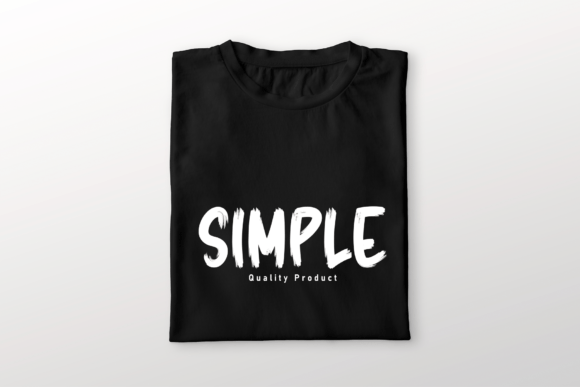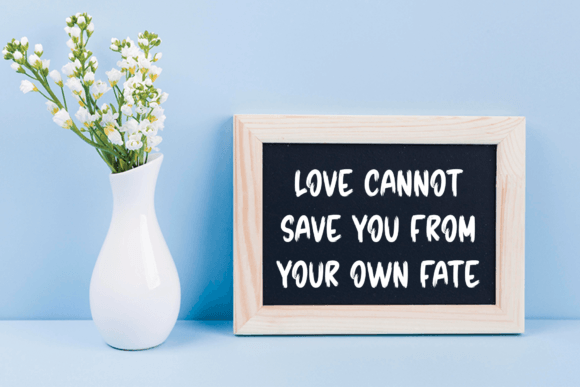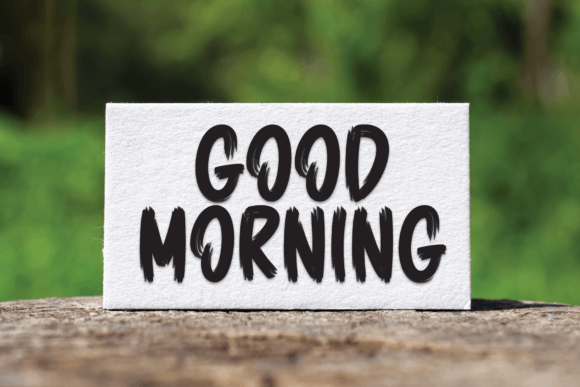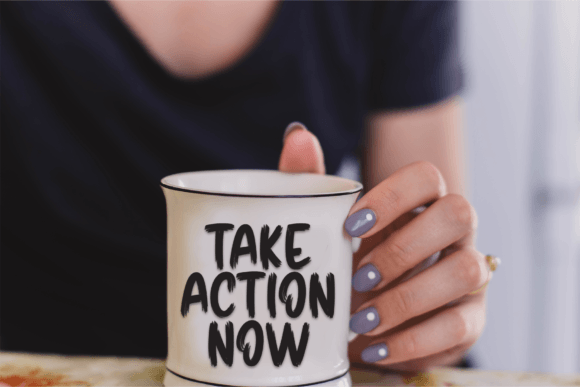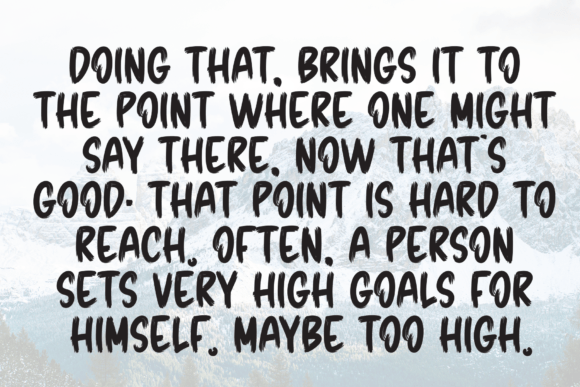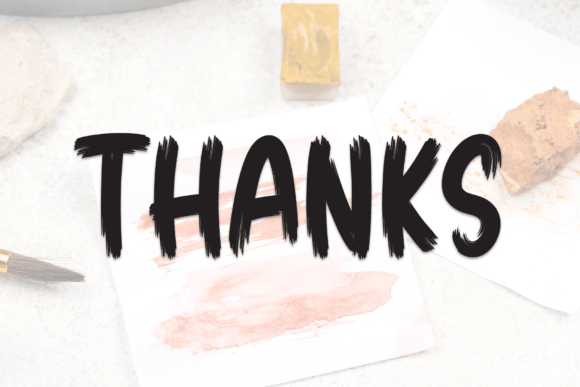
Unleash Your Creativity with the Brush Handmade Font
Have you ever been in the middle of a creative project, pouring your heart and soul into it, when suddenly, the perfect font comes to mind? For many designers, the Brush Handmade Font is that elusive spark that brings their ideas to life.
Brush Handmade Font is a charming and approachable handwritten font, crafted with love and attention to detail. Its unique, hand-painted style gives your designs a personal touch, making them stand out from the crowd. Whether you’re working on a wedding invitation, a children’s book, or a social media campaign, this font is the perfect companion to help you express your creativity.
For designers, the Brush Handmade Font is a valuable tool that can elevate their work and make it more engaging. Its versatility and natural charm make it a must-have in every designer’s toolkit, allowing them to bring their imagination to life and create truly unique and memorable designs.
Key Features of Brush Handmade Font
- Character Set: The font includes a comprehensive set of characters, including uppercase and lowercase letters, numerals, punctuation, and special characters.
- Unique Characteristics: The Brush Handmade Font features a unique, hand-drawn design with subtle imperfections, giving it a natural, organic feel.
Brush Handmade Font Review
Overall, I was impressed by the Brush Handmade Font, a beautiful script font designed to evoke a sense of elegance and sophistication. ✨ The font’s fluid, handwritten feel makes it perfect for creating a sense of warmth and personality in your designs.
Here are some of the things that worked well for me:
- ✨ Beautifully crafted letterforms that are both elegant and whimsical
- ✨ Excellent legibility, even at smaller font sizes
- ✨ Great for creating a sense of movement and flow in your designs
However, I did encounter a few limitations:
- ⚠️ Limited language support, which may be a concern for multilingual designs
- ⚠️ Some users may find the font’s fluid feel to be too loose or inconsistent
- ⚠️ May not be suitable for titles or headlines where precision and clarity are essential
Overall, I think the Brush Handmade Font is a great choice for designers looking to add a touch of elegance and personality to their designs. While it may have some limitations, its unique feel and excellent legibility make it a great addition to any font collection.
Practical Application Guide for Brush Handmade Font
For the best results, use Brush Handmade Font in designs that require a creative, handwritten look. This font is ideal for invitations, greeting cards, and other paper crafts. You can also use it to add a personal touch to digital designs, such as social media graphics and website headers.
Brush Handmade Font is commonly used for:
Invitations and greeting cards
Social media graphics and website headers
Paper crafts and DIY projects
Wedding and event invitations
Alternatives to Brush Handmade Font
Ostrich Sans is a sans-serif font with a modern and playful feel. It’s ideal for use in headings, titles, and logos where a unique and eye-catching look is desired. Unlike Brush Handmade Font, Ostrich Sans is more geometric and lacks the handmade, distressed feel of Brush Handmade Font. It’s perfect for designers who want a clean and modern look without the rough edges.
Great Vibes is a script font with a casual, handwritten feel. It’s great for use in titles, headings, and body text where a friendly and approachable tone is desired. While Brush Handmade Font has a more distressed, vintage feel, Great Vibes is more polished and elegant. Great Vibes is ideal for designers who want to add a touch of personality to their designs without the rough edges of Brush Handmade Font.